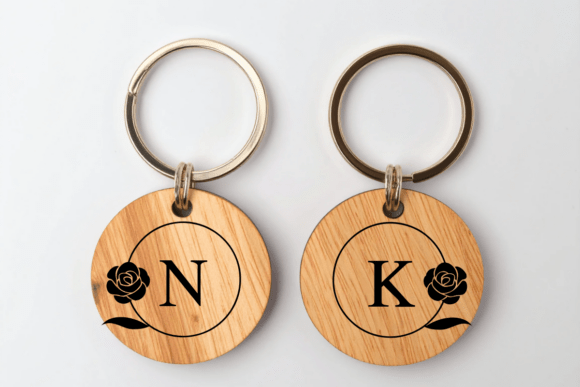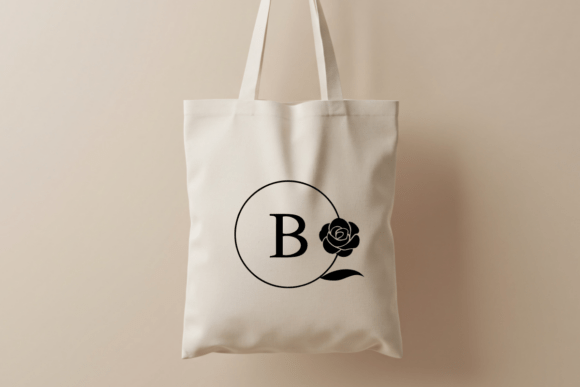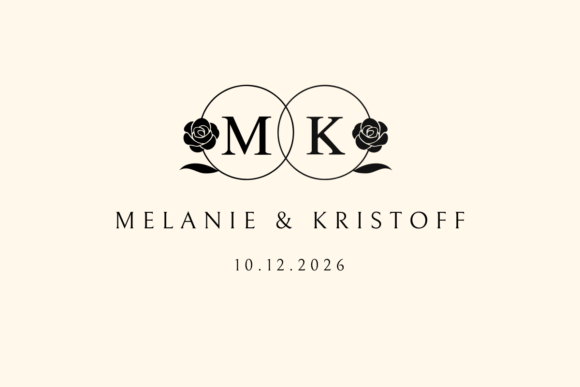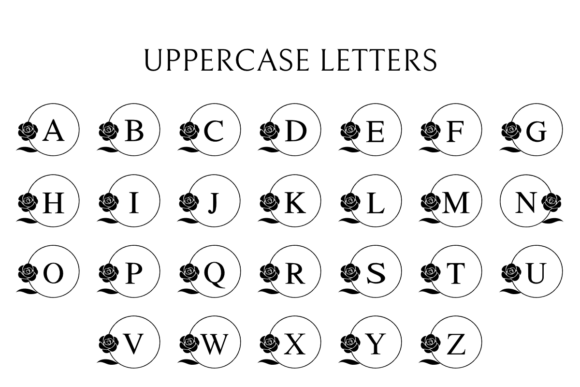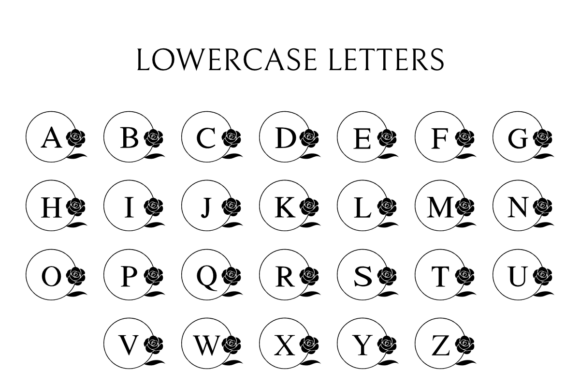
Introduction to Rose Frame Monogram Font
Rose Frame Monogram is an exquisite decorative typeface designed to bring a touch of floral elegance and romantic sophistication to your personalized branding.
This Rose Frame Monogram typeface features a unique structural design where each capital letter is perfectly nested within a delicate circular frame, anchored by beautifully illustrated rose silhouettes The contrast between the clean, classic serif letterforms and the soft, organic curves of the botanical elements makes the Rose Frame Monogram font an ideal choice for high-end wedding stationery, boutique logos, and luxury gift packaging.
Key Features of Rose Frame Monogram Font